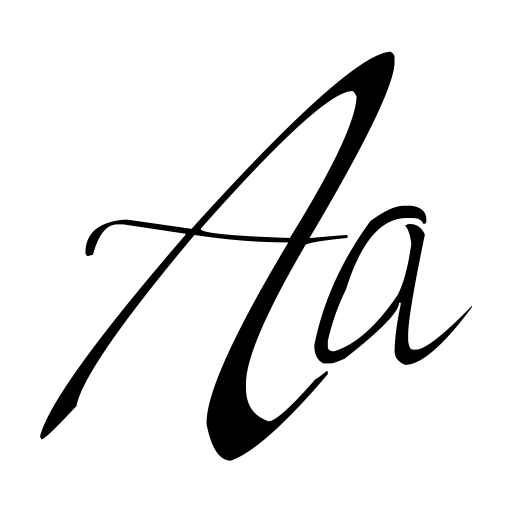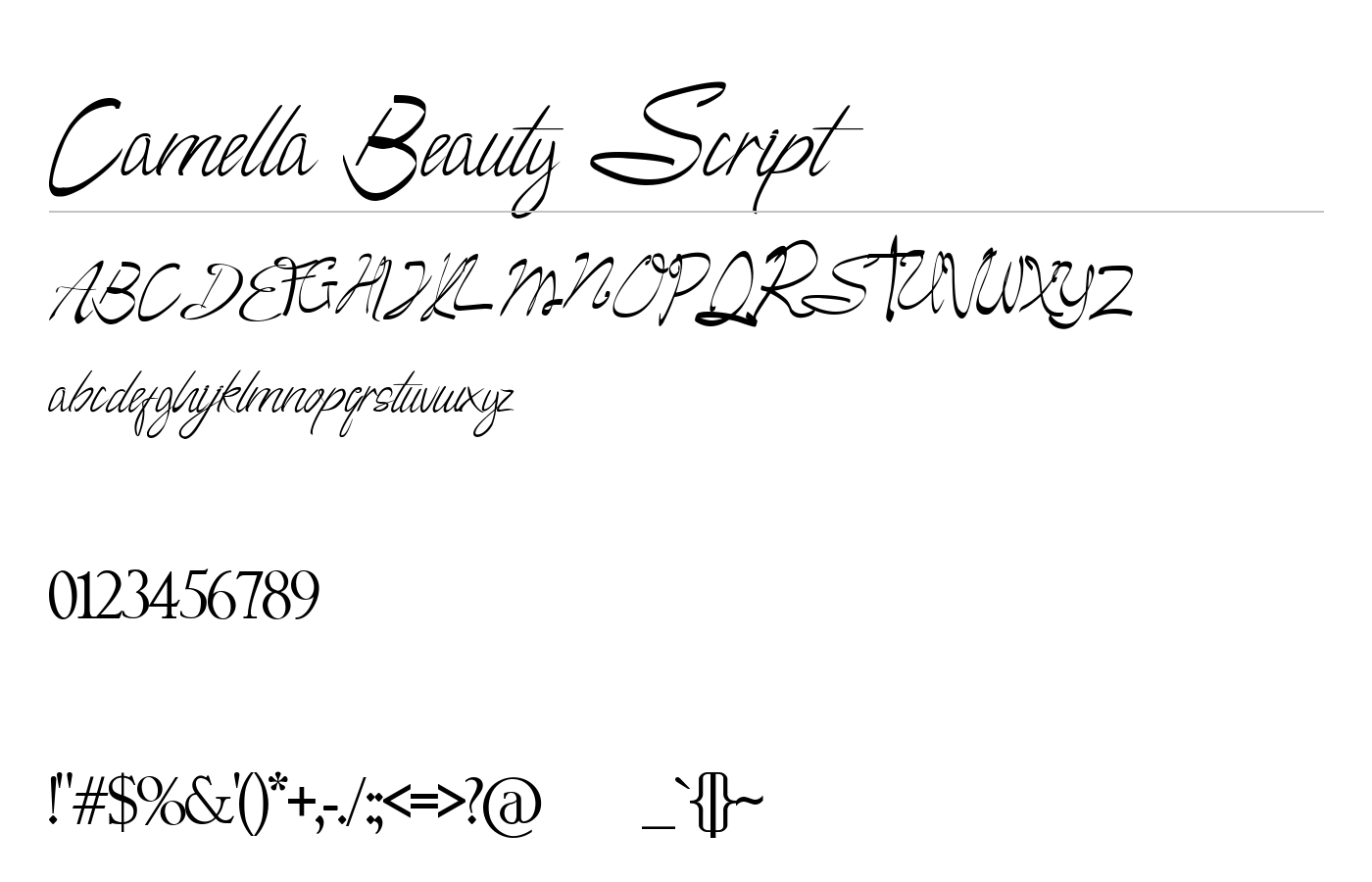
Camella Beauty Script is an elegant, delicate script font with a hand-drawn, calligraphic feel that combines flowing, slender strokes with a refined, artistic flair. Its high contrast between thin and thick lines adds a graceful sophistication, making it perfect for beauty, fashion, and luxury branding where a stylish, feminine touch is desired. This font works beautifully for logos, invitations, and editorial headlines, offering a charming and modern personality that enhances any design with a sense of elegance and creativity.
Camella Beauty Script Font
About Camella Beauty Script Font
| Font family | Camella Beauty Script Font |
| Designer | Gigih Wiryana |